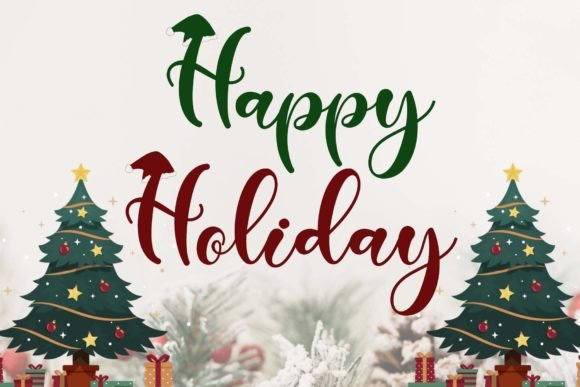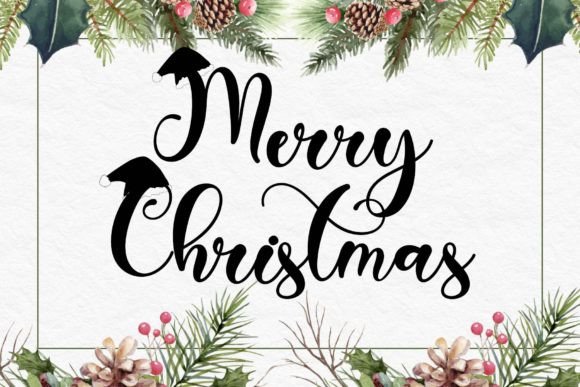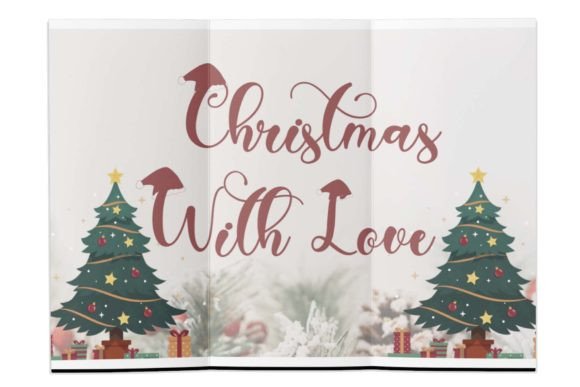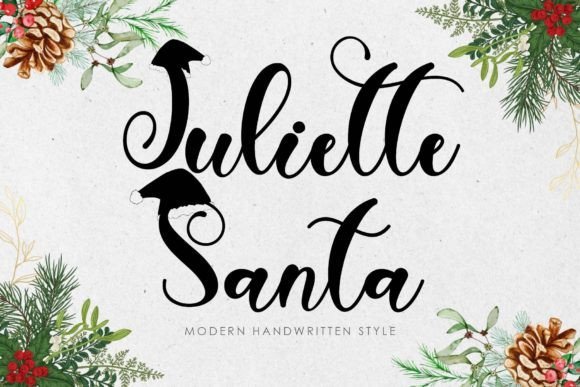
Introduction to Juliette Santa Font
β€œJuliette Santa” is a beautiful and unique handwritten font.
This font is equipped with uppercase, lowercase, numerals, punctuations, ligatures and multilingual support Very suitable for Christmas, congratulations, weddings, birthdays, fall, back to school, July Christmas, summer, holidays and others.